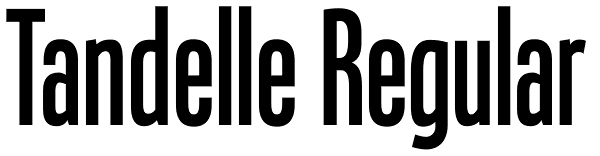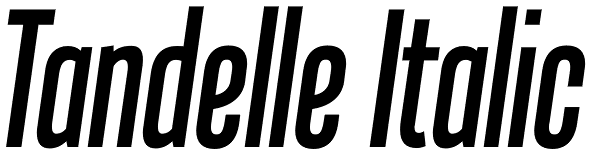
Tandelle
The classic yet contemporary style gets noticed amid the sea of “same old fonts.” The masculine yet elegant lines impart a charm not often seen in compact fonts.